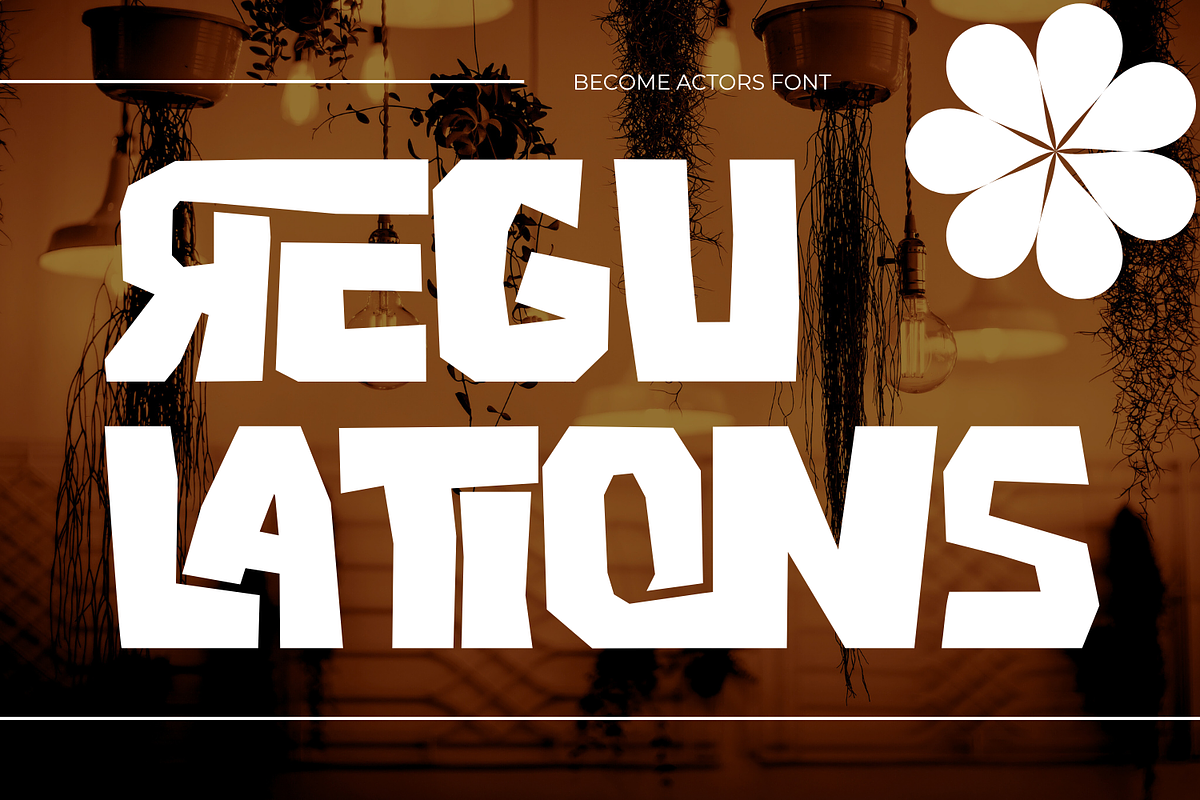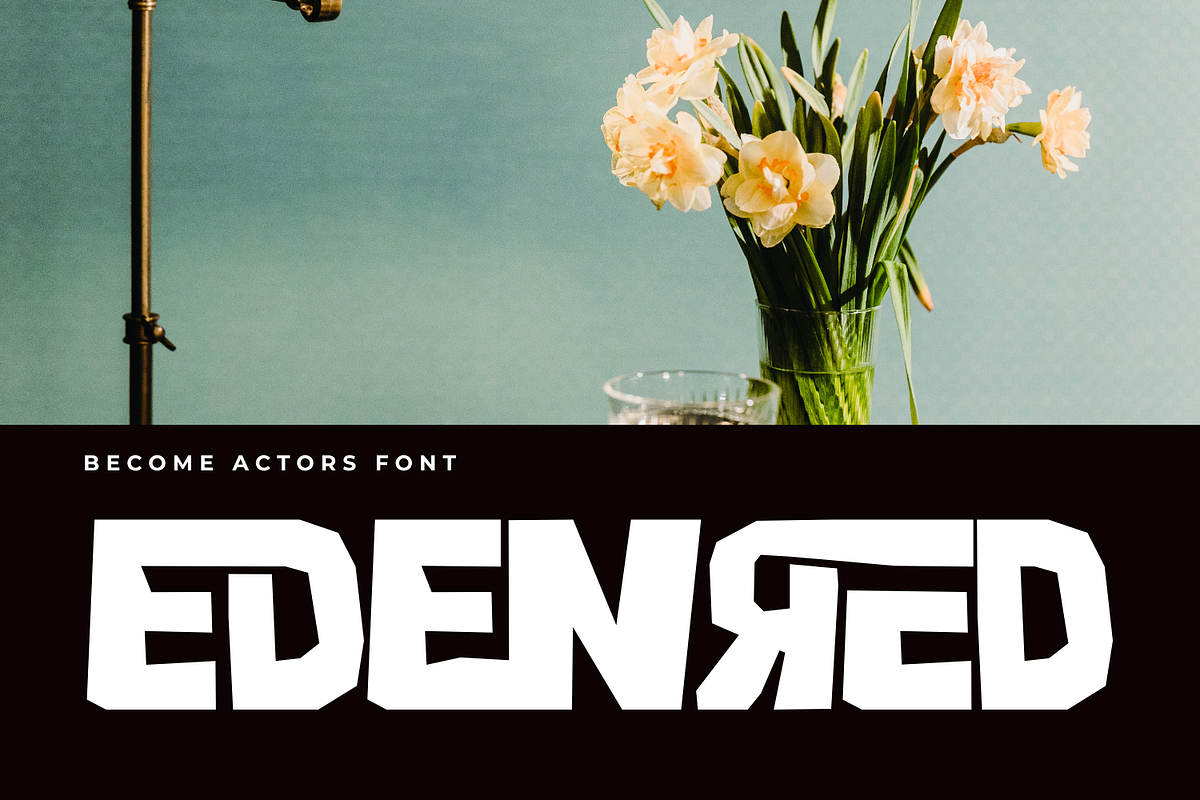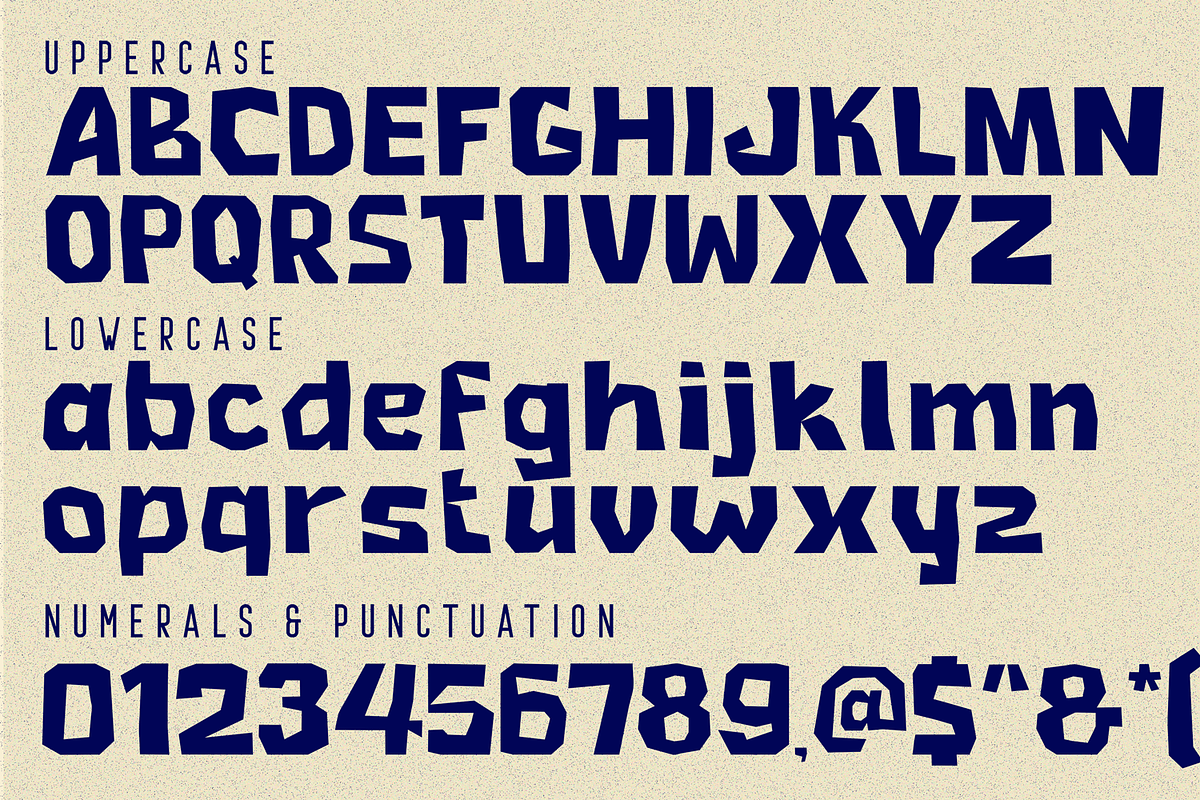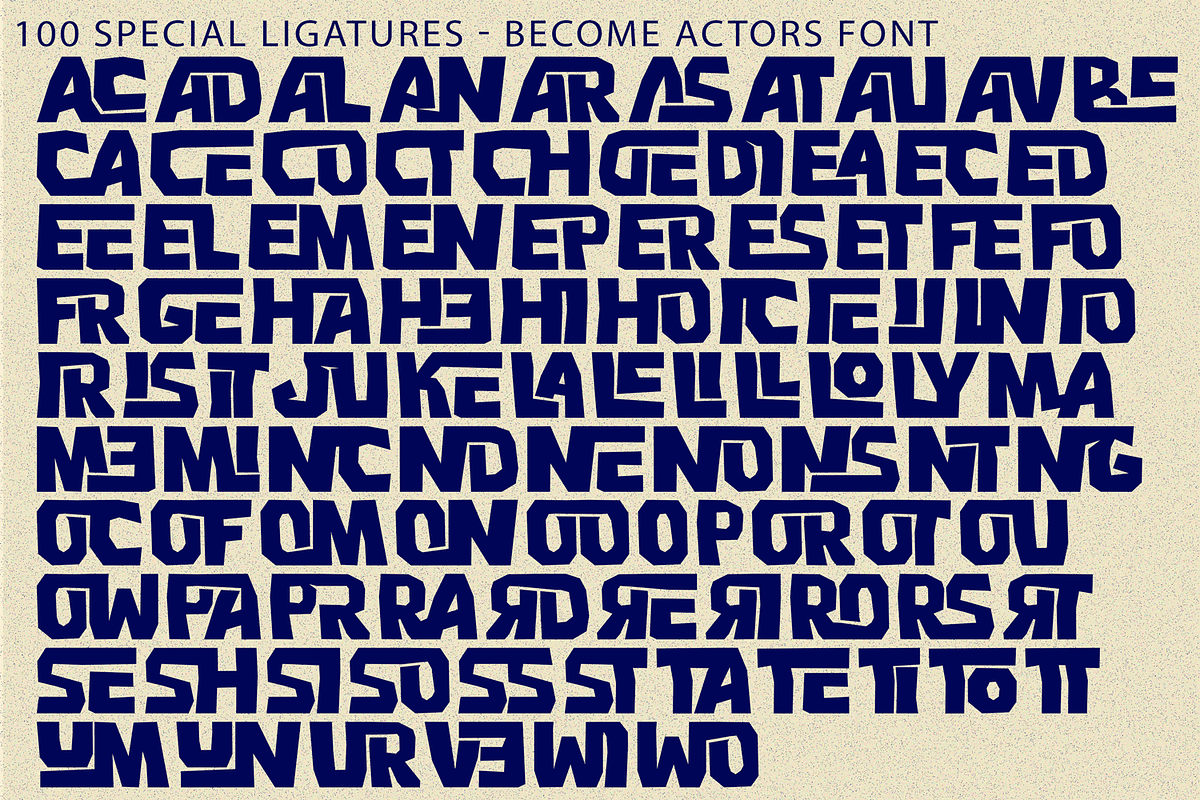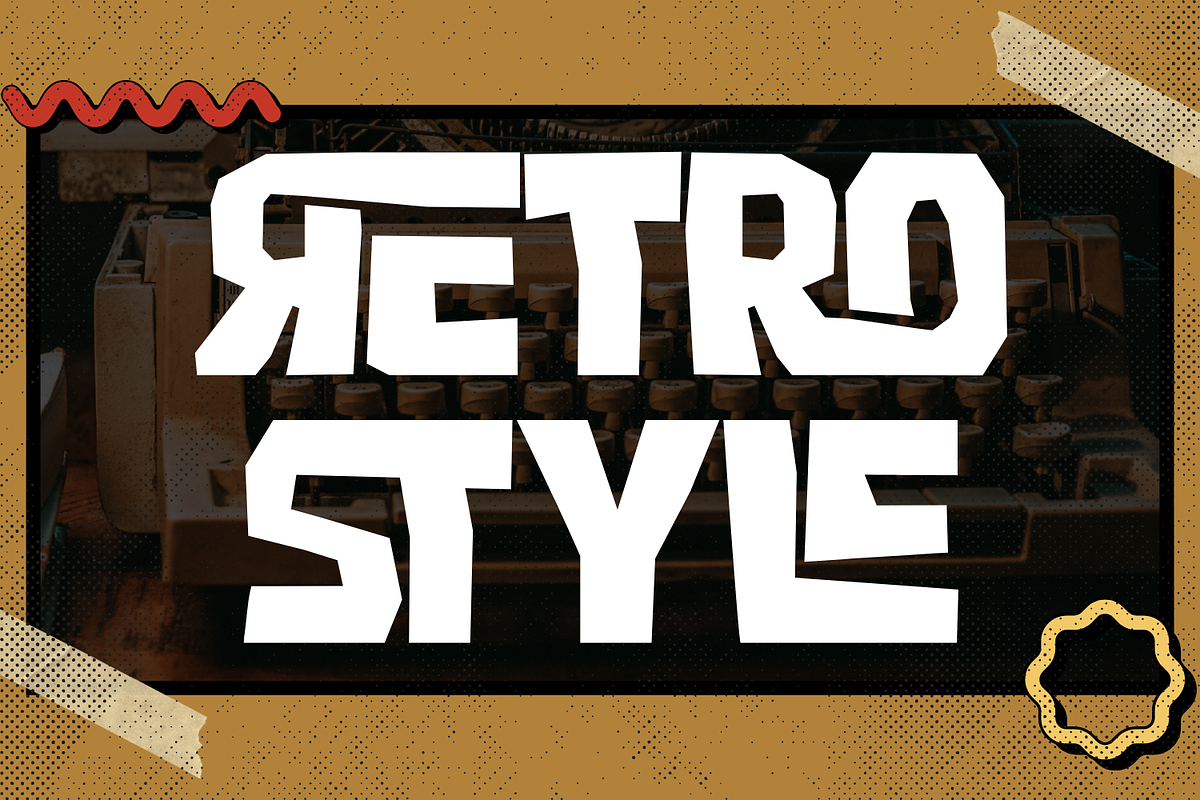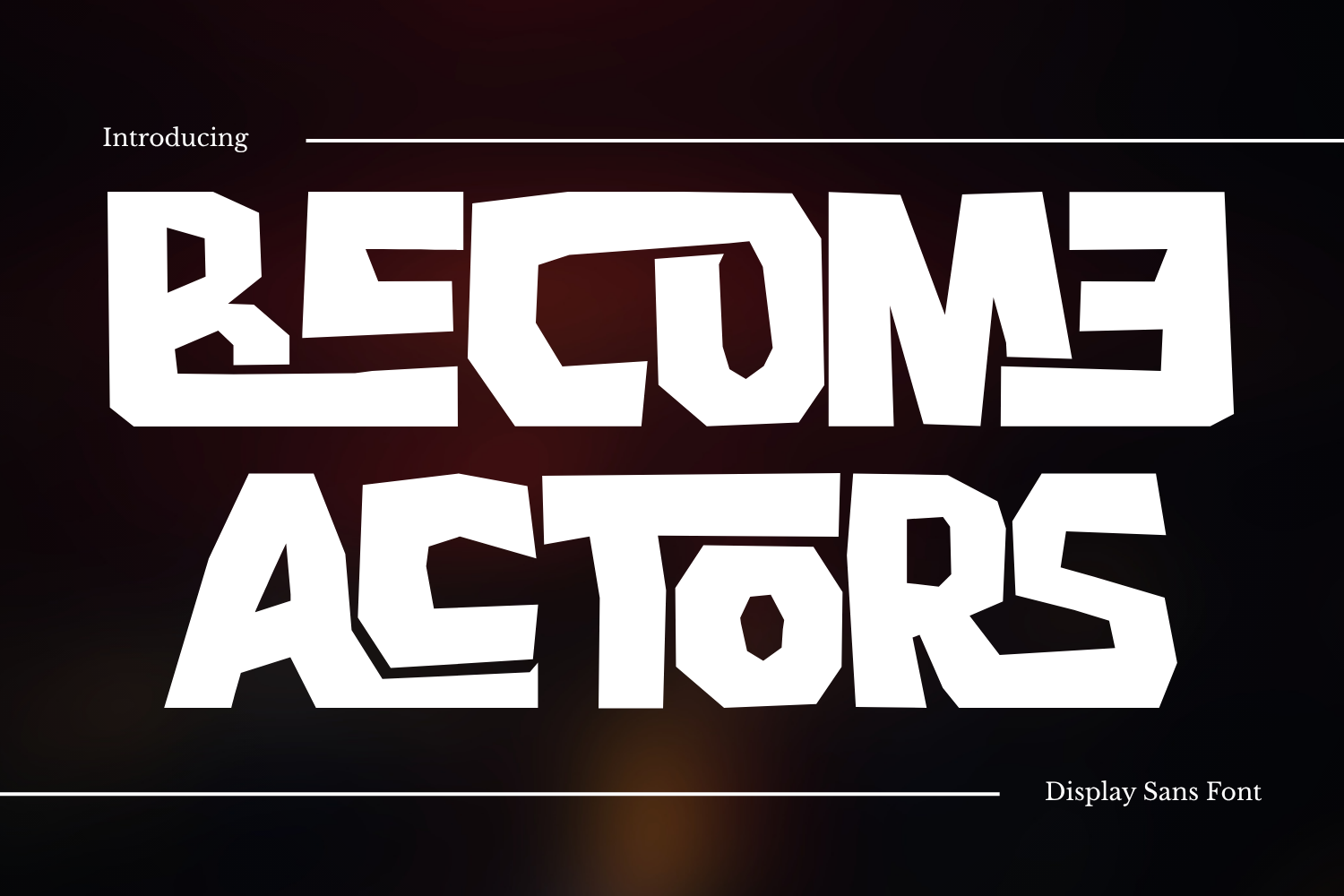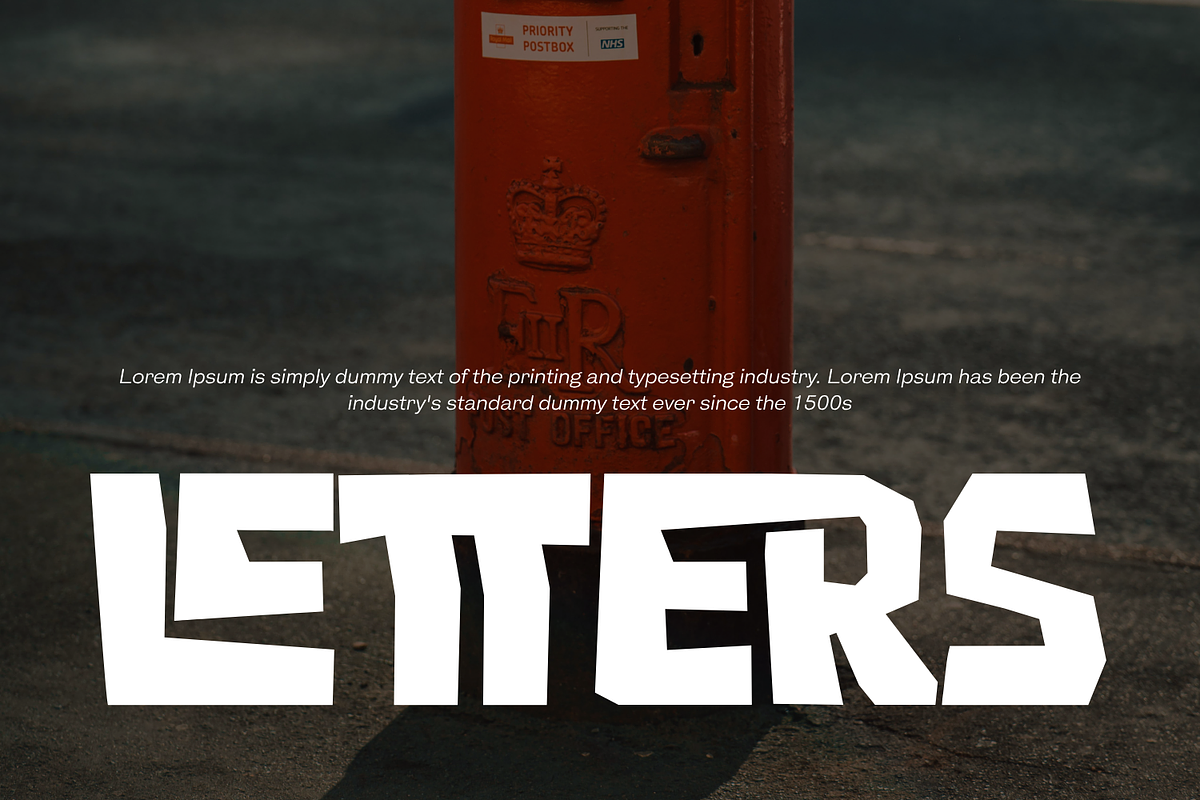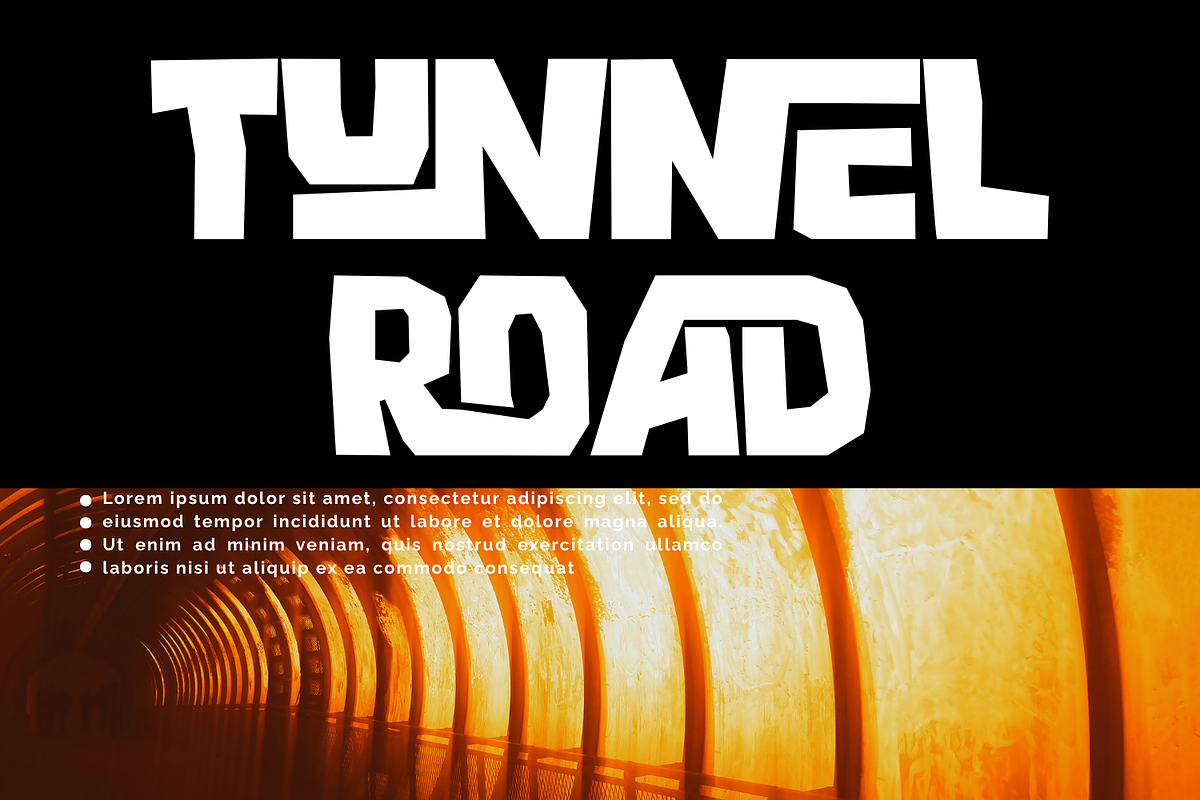
BECOME ACTORS - PLAYFUL FONT
BECOME ACTORS - PLAYFUL FONT – Chunky Low-Poly & Angular Cutout Display Font, high-impact display font engineered with heavy blocky proportions and sharp, faceted angular cutouts. Replacing conventional smooth curves with straight-edge geometric slices, this typeface captures the tactile energy of low-poly 3D artwork, hand-cut papercraft, and playful comic book titles.
Built with ultra-thick stems and distinct geometric inner counters, BECOME ACTORS delivers an unstoppable visual presence that commands immediate focus. It is the ultimate choice for game graphics, cartoon titles, comic book covers, children's book layouts, playful food packaging, YouTube thumbnails, and edgy streetwear branding. Add a fun, handcrafted, and solid punch to your designs with BECOME ACTORS.
🔤Features:
Uppercase & Lowercase Letters
Around 100 Special Ligatures & Alternates
Accented Characters for multilingual support
🔤About 100 ligatures combined with Stylistic Alternates Font:
AC AD AL AN AR AS AT AU AV BE CA CE CH CO CT DE DI EA EC ED EE EL EM EN EP ER ES ET FE FO FR GE HA HE HI HO IE IC IL IN IO IR IS IT JU KE LA LE LI LL LO LY MA ME MI NC ND NE NG NO NT NS OC OF OM ON OO OP OR OT OU OW PA PR RA RD RE RI RO RS RT SE SH SI SO SS ST TA TE TH TI TO TR TT UM UN UR VE WI WO